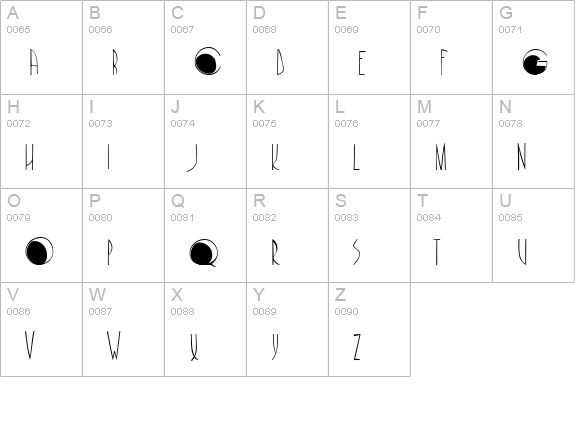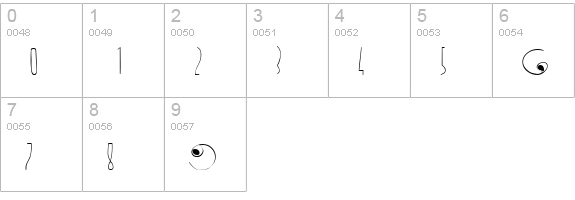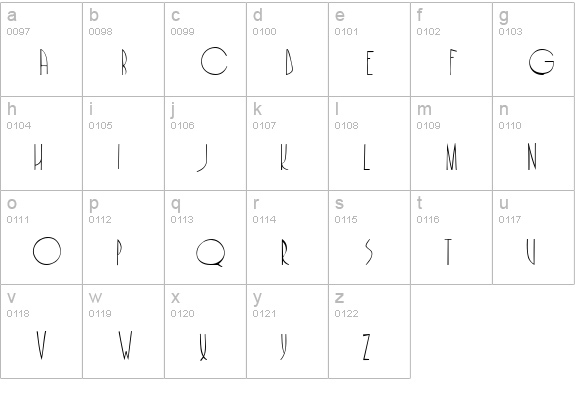
CafeNoirFill Font Details
CafeNoirFill is an exquisite font that exudes elegance and sophistication. With its sleek and stylish design, this font is perfect for adding a touch of class to any project. The flowing curves and delicate strokes of CafeNoirFill create a sense of refinement and grace, making it ideal for use in branding, invitations, and editorial designs. But what sets CafeNoirFill apart is that it is not only visually appealing, but also free. Yes, you read that right - this stunning font is freely available to download at FontsMarket.com. This means that you can enhance your designs without worrying about breaking the bank. Whether you are a professional designer or a creative enthusiast, CafeNoirFill gives you the opportunity to elevate your work without any cost. The versatility of CafeNoirFill allows it to be used in a variety of contexts. From wedding invitations to restaurant menus, this font brings a touch of sophistication to every project. Its timeless appeal and classic charm make it a go-to choice for those who appreciate the finer things in life. When it comes to legibility, CafeNoirFill doesn't disappoint. Its well-balanced proportions and clean lines ensure that your text is easy to read, even at smaller sizes. Whether you are designing a website or creating a poster, CafeNoirFill guarantees that your message will be conveyed with clarity and style. So, why settle for ordinary when you can have extraordinary? Download CafeNoirFill for free at FontsMarket.com and let your creativity soar. With this font in your toolkit, you can create designs that are not only visually stunning but also exude a sense of sophistication and refinement. Don't miss out on this opportunity to elevate your work - get CafeNoirFill today and make a lasting impression.